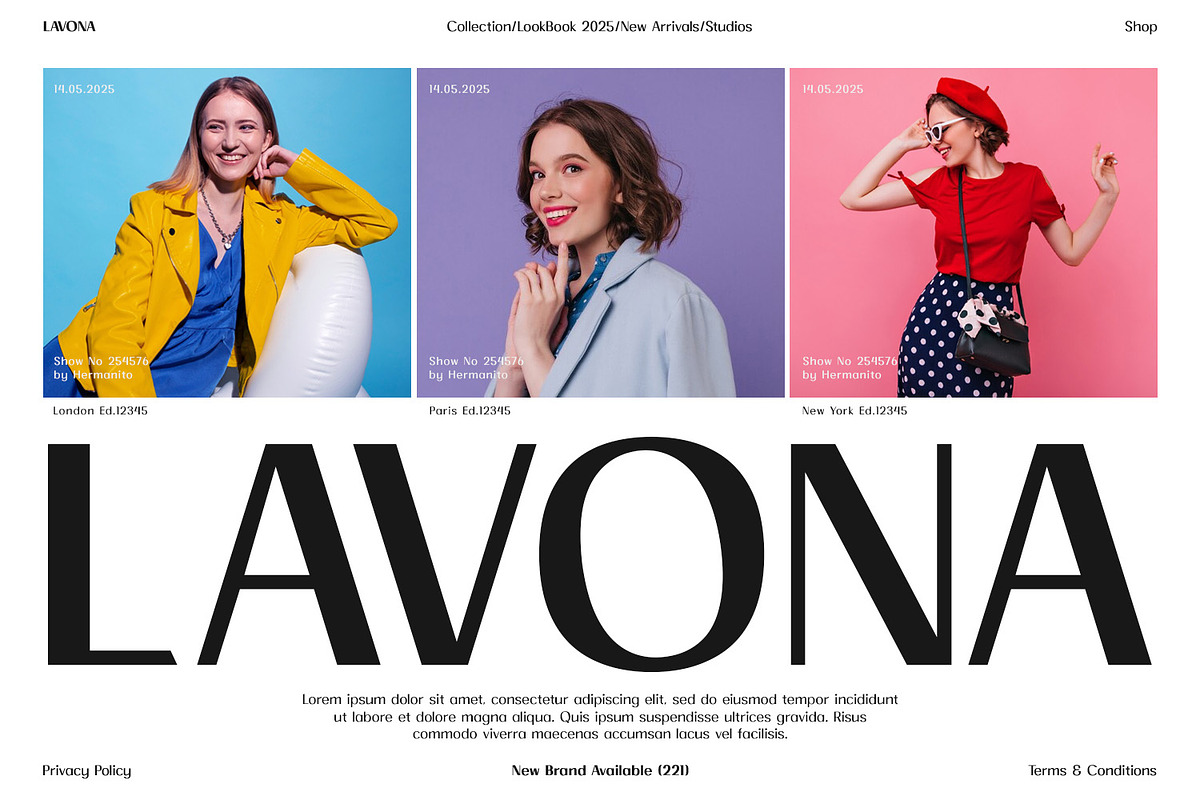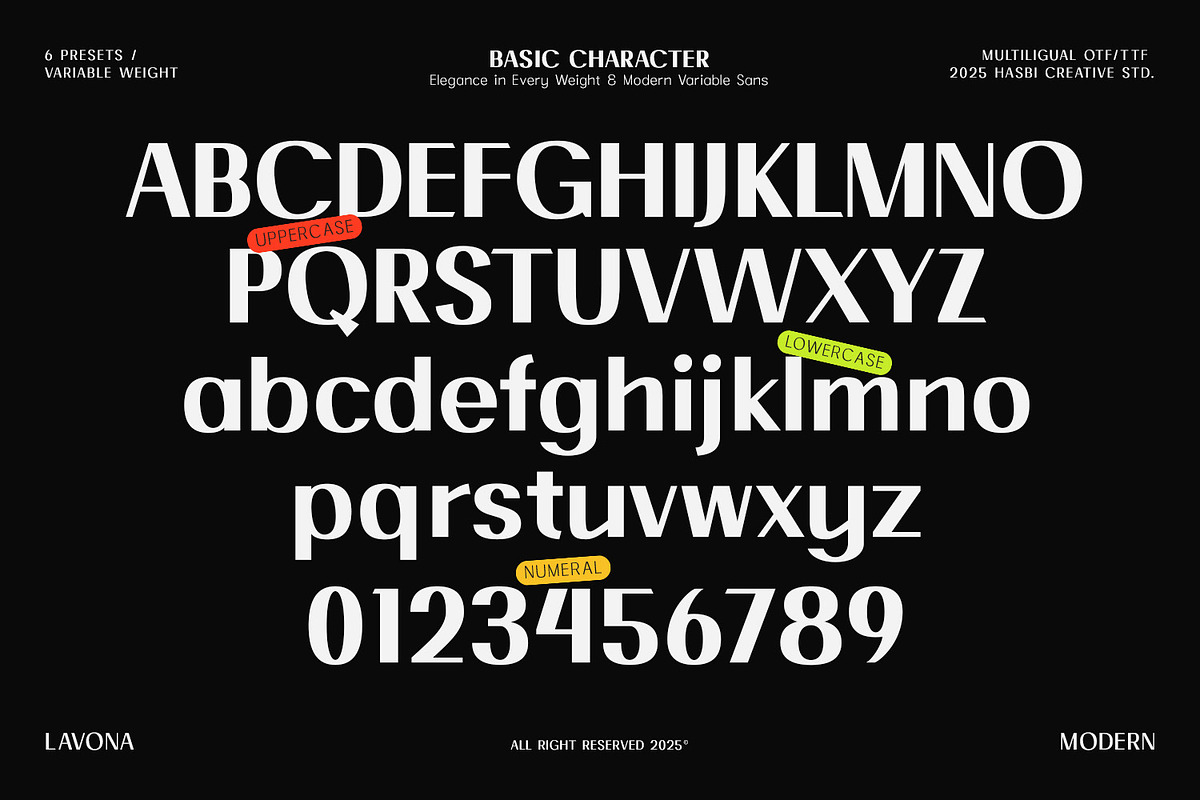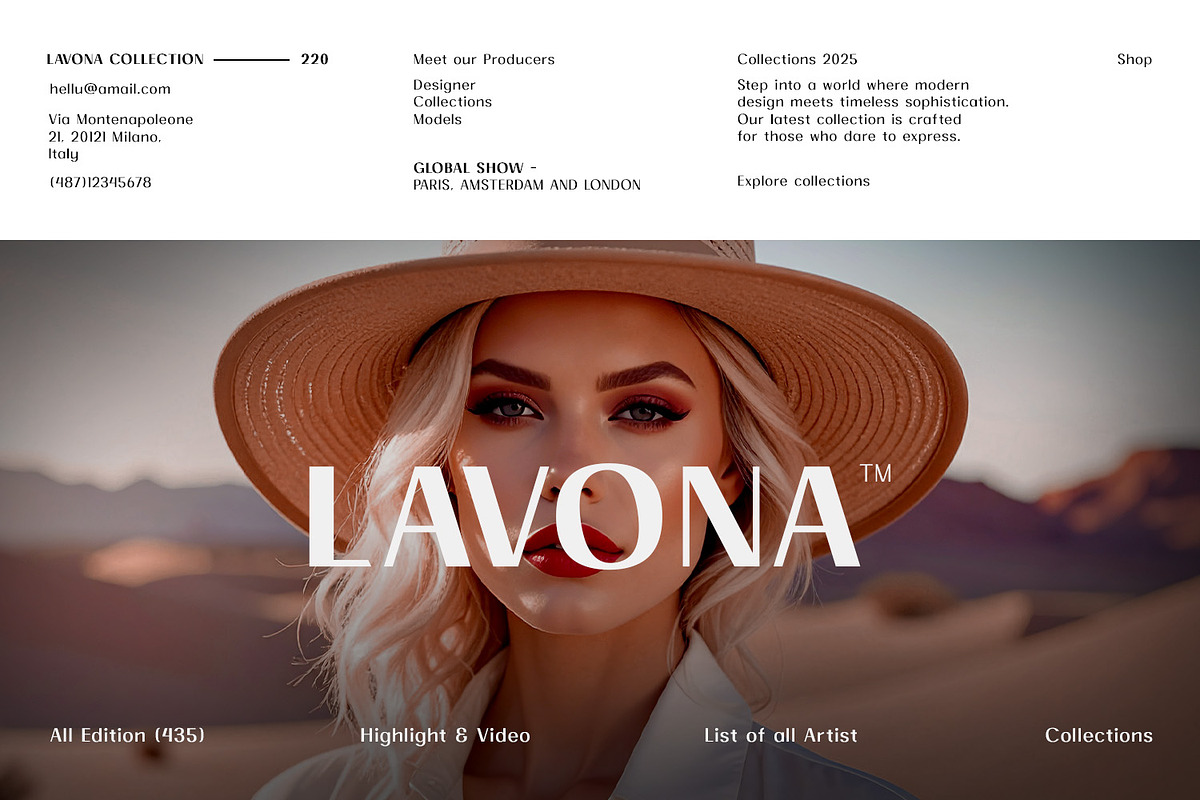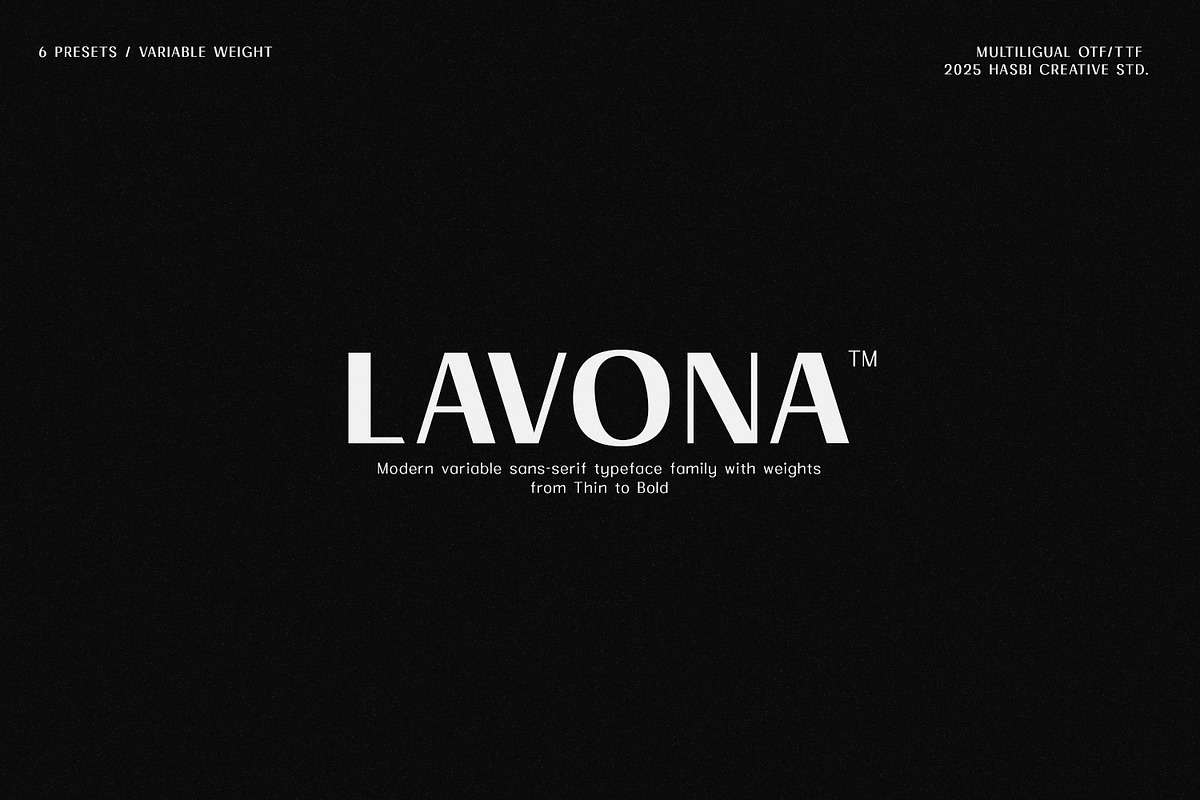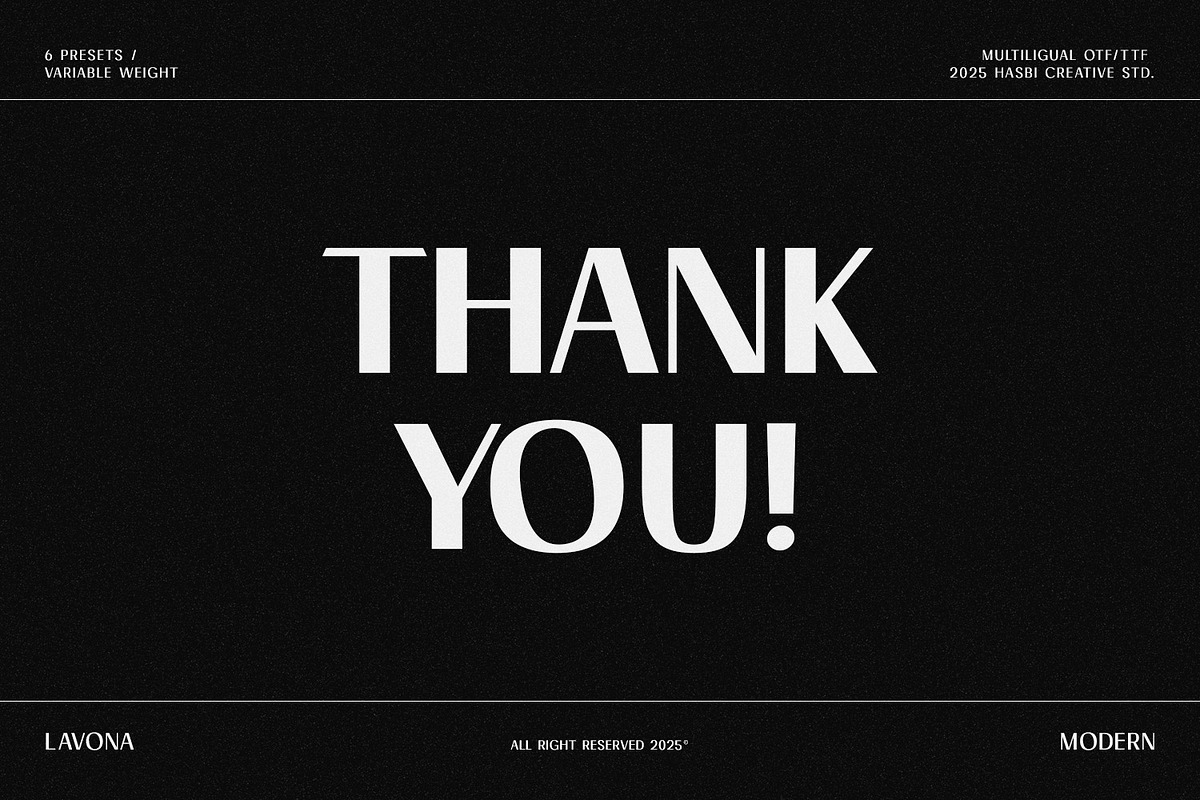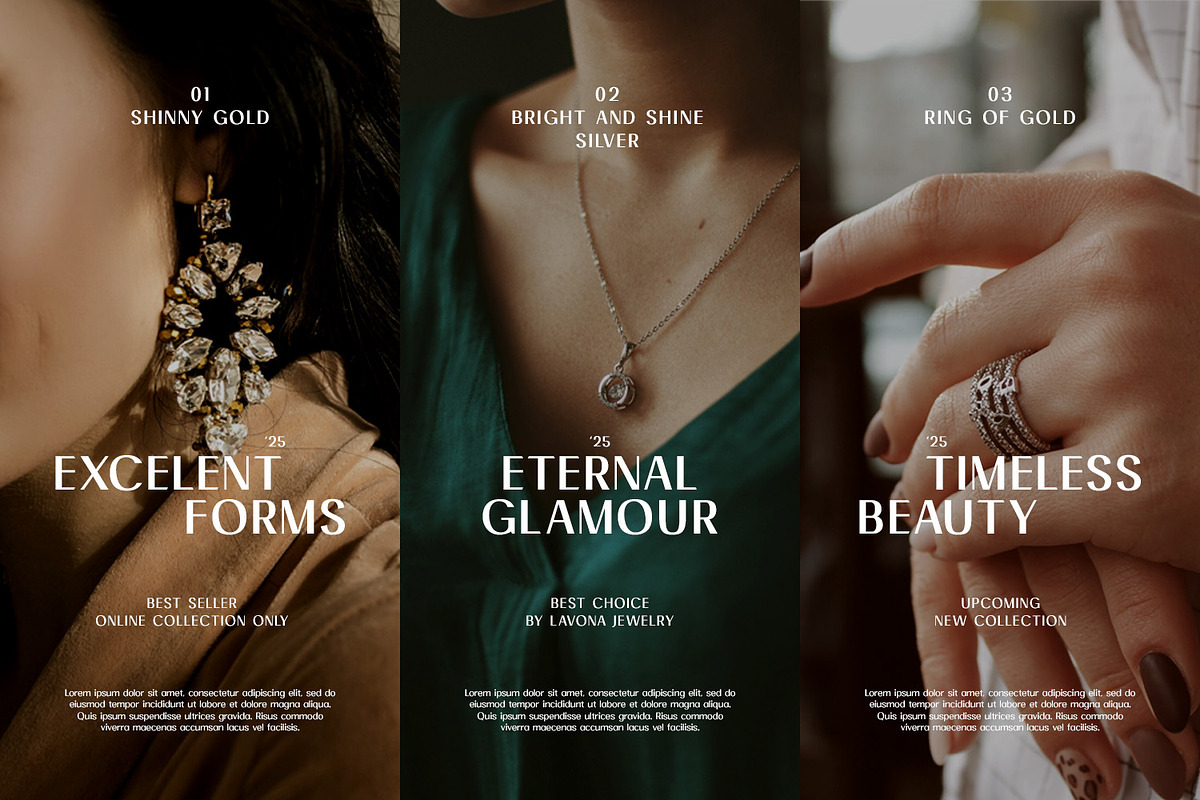
Lavona – Modern Variable Sans Serif
Lavona is a modern variable sans-serif typeface family with six carefully balanced weights: Thin, Extra Light, Light, Regular, Medium, and Bold. Designed for branding, editorial layouts, user interfaces, websites, packaging, and digital publications, Lavona offers clean geometric shapes, excellent legibility, and a contemporary minimalist style. Its flexible variable font technology lets you adjust weight seamlessly—perfect for logos, headlines, posters, magazines, and corporate identity. Whether you need elegant thin text or strong bold titles, Lavona delivers professional typography for both print and digital projects.
Uppercase & lowercase
If you’re looking for a modern variable font that is both stylish and versatile, Lavona will elevate your design projects with elegance and modern.